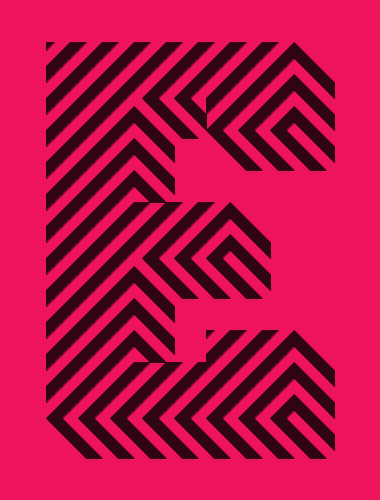
Zebroid
by Frodo7
See also Zebroid v2 by Frodo7.
Three dimensional letters look as if carved out of blocks of diagonally layered black and white material.
Three dimensional letters look as if carved out of blocks of diagonally layered black and white material. Occasionally the white layer had been exposed at the bottom right corner and elsewhere.
Work in progress.
A very nice font at larger pixel sizes. 10/10.
Each letter a beauty. I like your three-dimensional interpretations. So simple and so fascinating.
Beautifully build and intriguing.
Another delight from the master of all things 3D. Wonderful!
What a beauty, master!! Simple, elegant, effective, usable, etc: A great font! I love this kind of works, you know. My 1000/10 2U!
Breathtaking.
Beautiful, unique, and epic!! Wonderful!! 100/10!!!
Wow. Just amazing. For letters that have curves on the lower left, maybe insteade of leaving them blank you should make them solid black
Dear friends, fellow fontstructors,
A few weeks ago I stumbled upon a picture showing just one letter of a very similar design: it was a sans serif F with diagonal stripes. That gave me the final push to start this project. Needless to say, designing a fully working typeface is quite a different challenge from creating one simple letter. It took me a lot of experimentation to arrive to the present formula: a block of 15.5 by 23.5 stripes (counting both black and white) to accommodate the features of most letters. For maximum impact I had to keep the number of stripes to a minimum, yet maintain the same visual effect across the whole set down to the smallest element, the simple dots/umlaut.
Working with black and white stripes have taught me to be humble; for they have thwarted my attempts several times to work out the best solution for the corners and diagonals.
The other thing - and it never stops to amaze me - is the way the 3D effect is created by simple parallel and perpendicular stripes. The illusion is perfect. Yet, the third dimension is not created on the print or the LCD display, but in our brain. It takes human intelligence to translate an abstract image of black and white stripes into three dimensional blocks of letters.
@h1k765: Yes, I tried the solid black version, but it didn't look very good. I also tested a corner with stripes. It looked better, but it violated the basic geometry of the set (see the picture).
I love this font, remind me your first works with FS
Have you try this kind of shadow ? maybe it's work your the concept you had in your mind
To be more accurate with the size of the font.
I meant: maybe it works WITH the concept you had in your mind
This is well deserved. Bravo maître !
Absolutely incredible work of art! Looking at the # up close makes me dizzy... 8O
Scary Good. You didn't do bonkers doing this? Amazing!
Brilliant work! This font has a similar effect to FS Karo by Tylo
@Upixel: Your solution looks OK, but it doesn't agree with the basic concept: when you cut a slab of material made of black and white layers, and your "knife" runs parallel with the layers/stripes, then the cut surface is going to be either black or white. I know, my solution is not perfect, for it leaves an empty area at the corners, but at least it reinforces the basic concept. The rest depends on the viewer's brain to complete the missing (white) parts (see an illustration to the point). This is an Op-Art font designed not for speed reading, but to pause and make people contemplate.
@iFutureMix: Yes, there are even more similar fonts, but I didn't do a full research.
gooood!!!